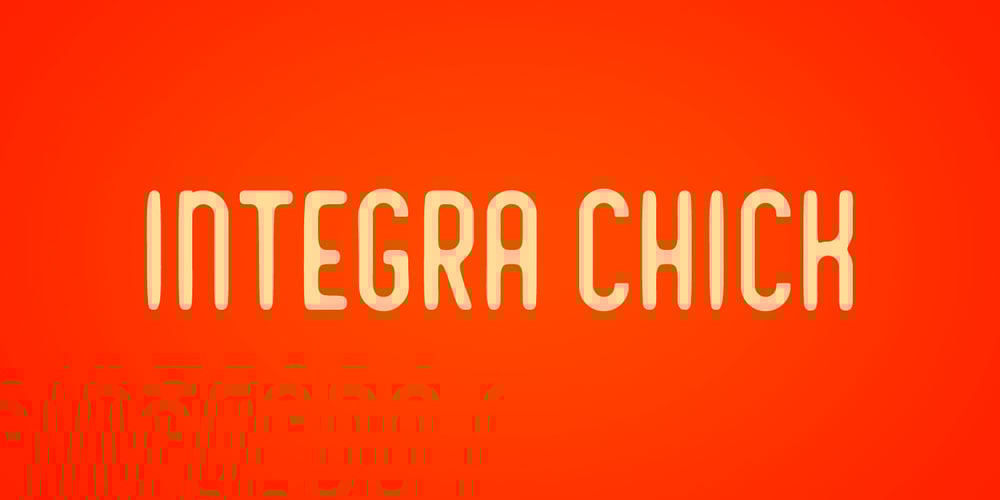
Integra Chic Font Family was designed by Coert De Decker and published by Kustomtype. Integra Chic contains 2 styles and family package options. Kustomtype’s “Integra Chic” font is a sans serif font family with a regular & oblique version. It contains all upper & lower cases. The “Integra Chic” family is coordinated into letterforms, metrics, and weights to work better together. Why still looking for old school types for your posters, advertising, text, design, artwork, headtext, editoral design, magazines, etc… “To banish imperfection is to destroy expression, to check exertion, to paralyze vitality.” John Ruskin